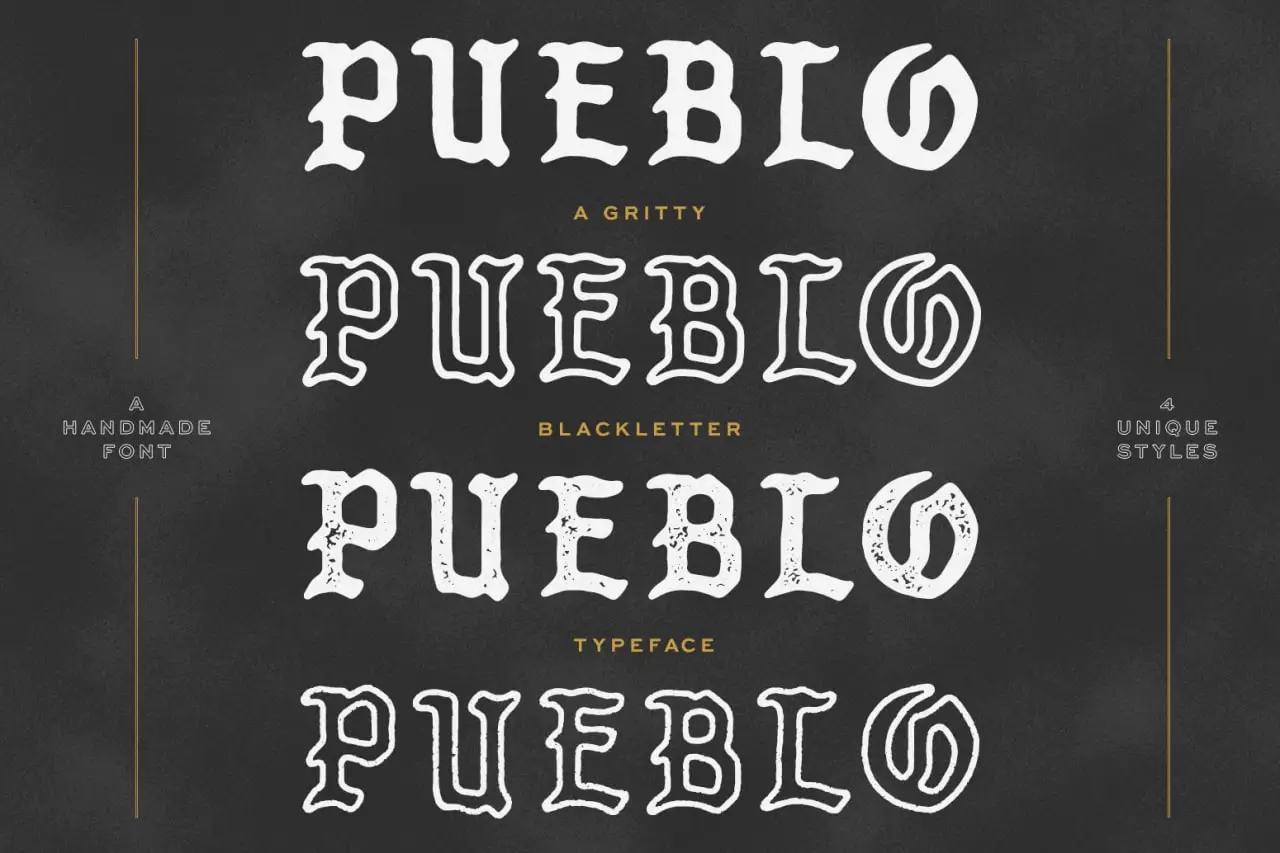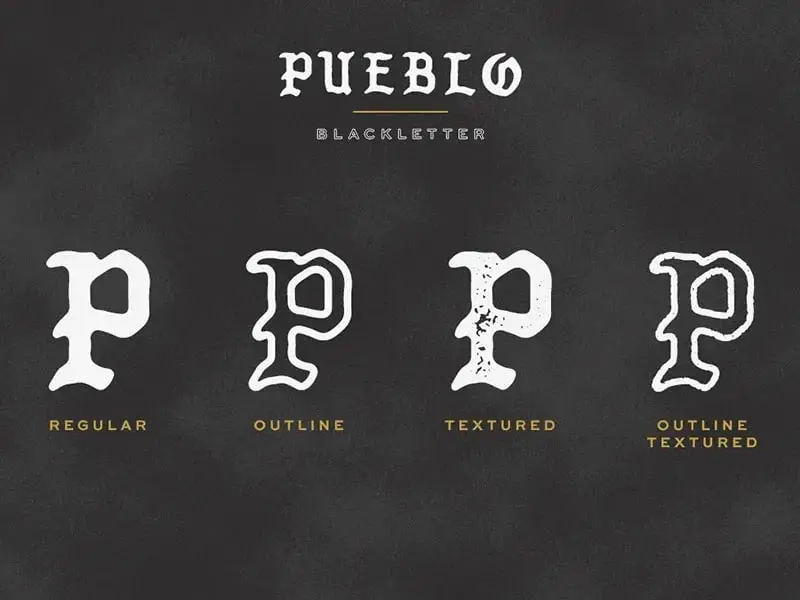
The Pueblo Font is a unique typeface that combines modern design with a rustic charm. Perfect for branding, logos, and both web and print applications, this font offers versatility and character.
- Stylish and contemporary design
- Multiple weights for various applications
- Clear legibility for both headlines and body text
- Ideal for creating eye-catching logos and branding materials
- Use in web design for headings and call-to-action buttons
- Great for print projects like posters, flyers, and business cards